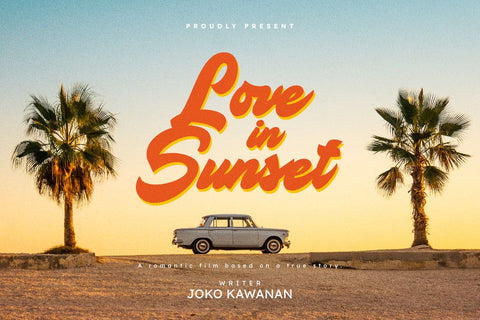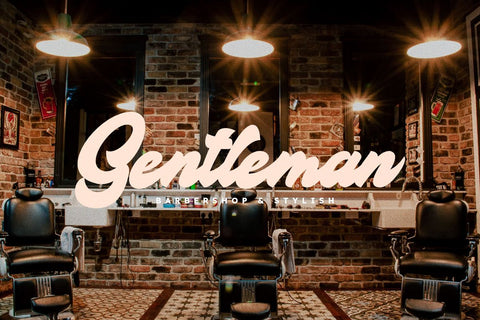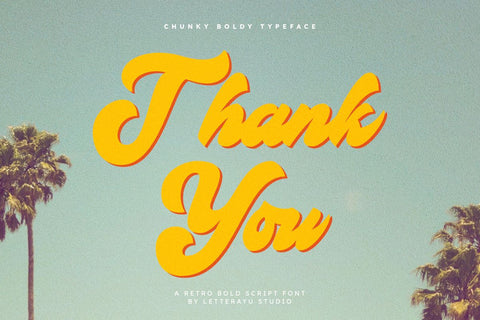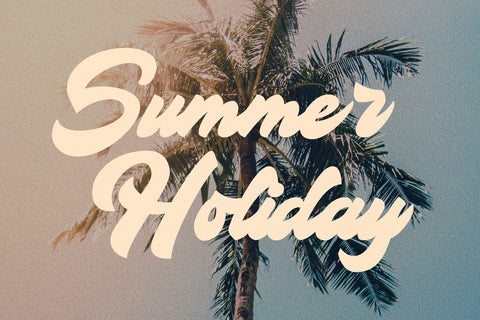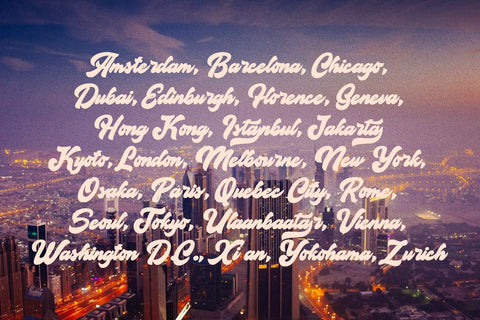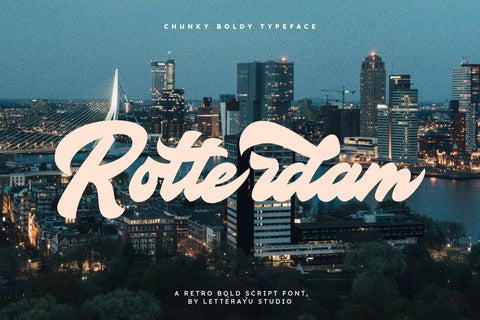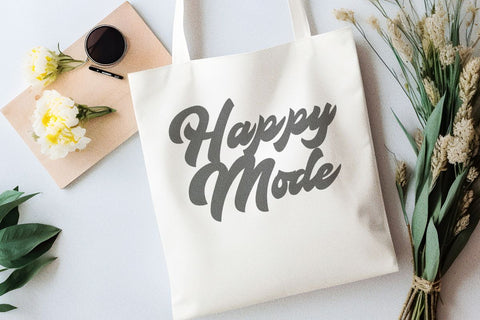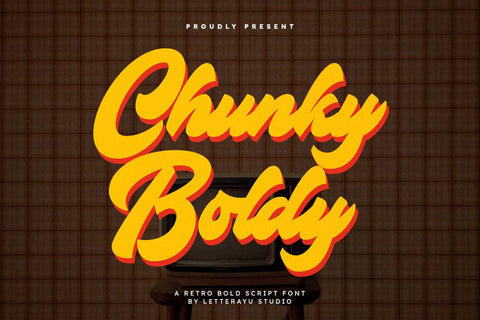
Chunky Boldy - Retro Script Font
Chunky Boldy is a groovy/retro handwritten script font. This font is perfect for retro designs, procreate, branding, shirts, logos, procreate, stickers, cricut projects, instagram, social media and more!